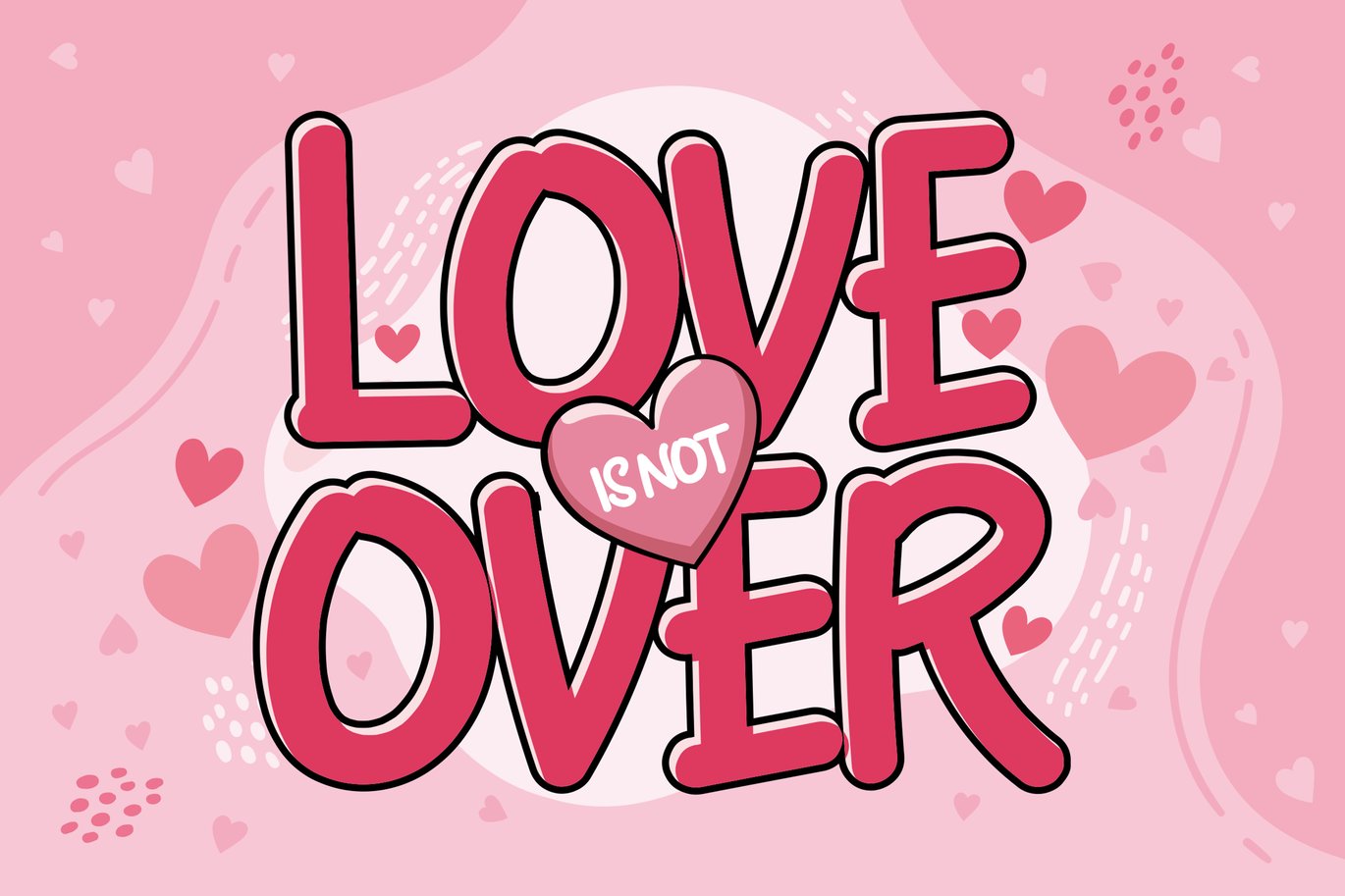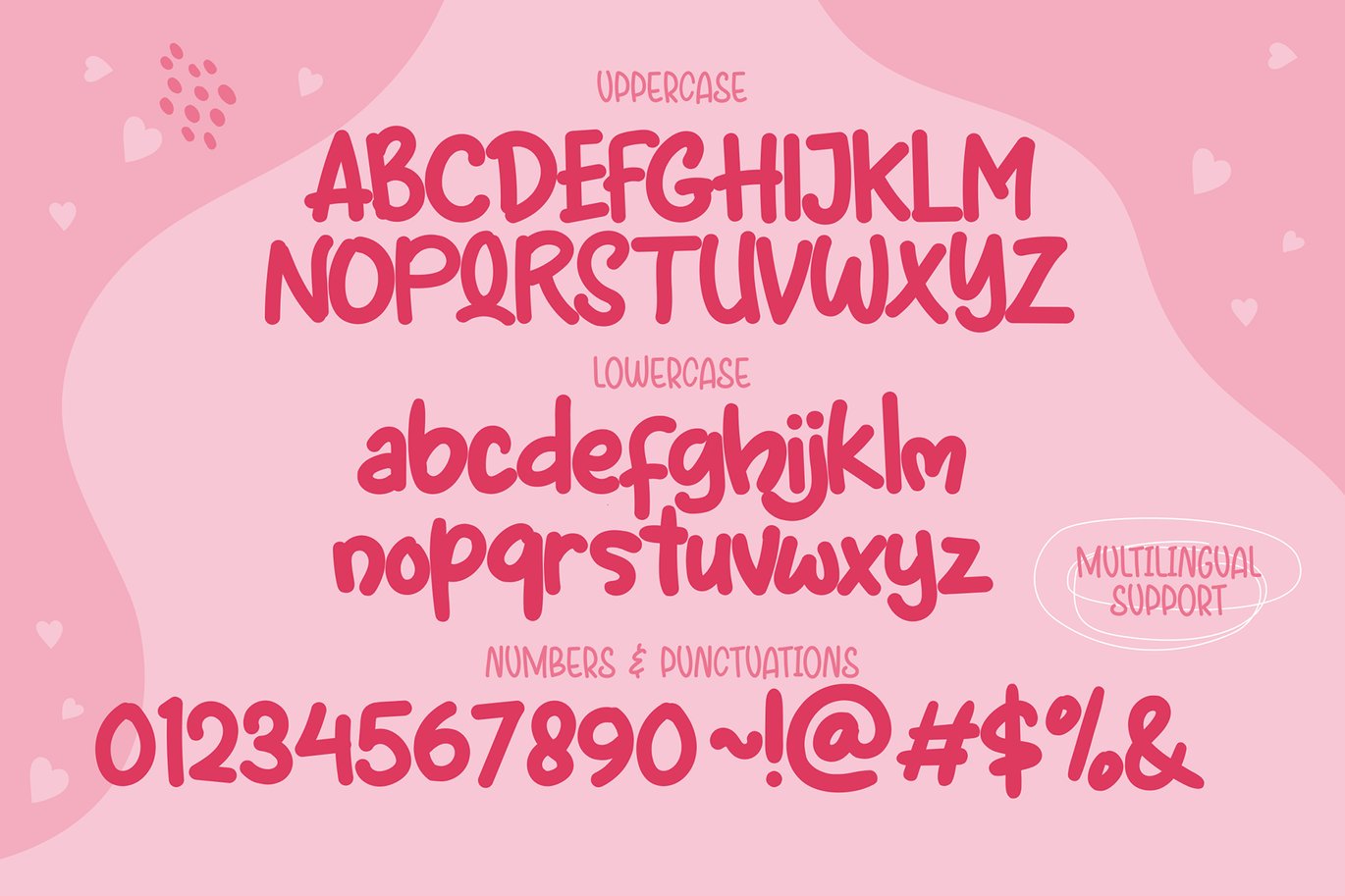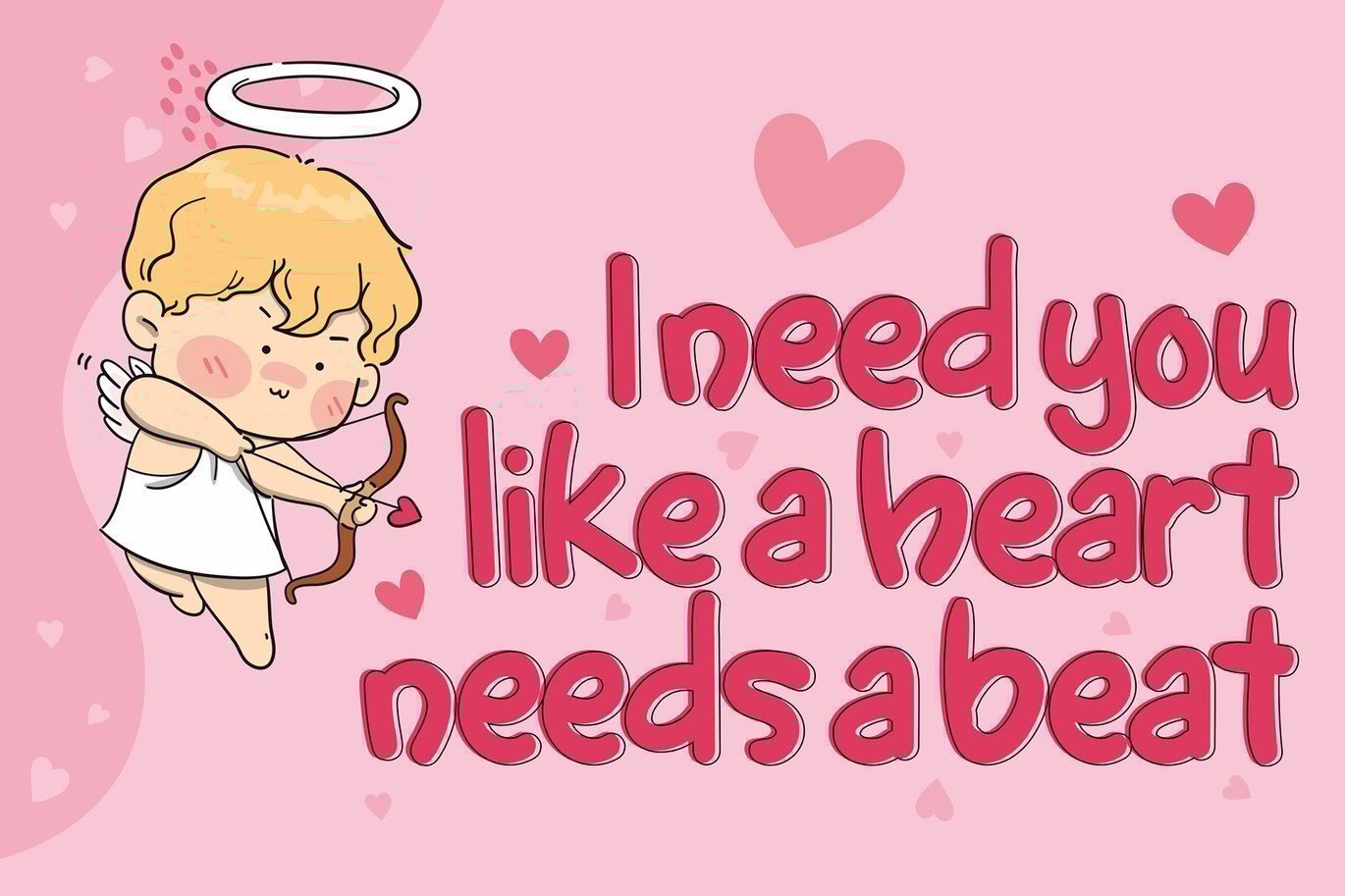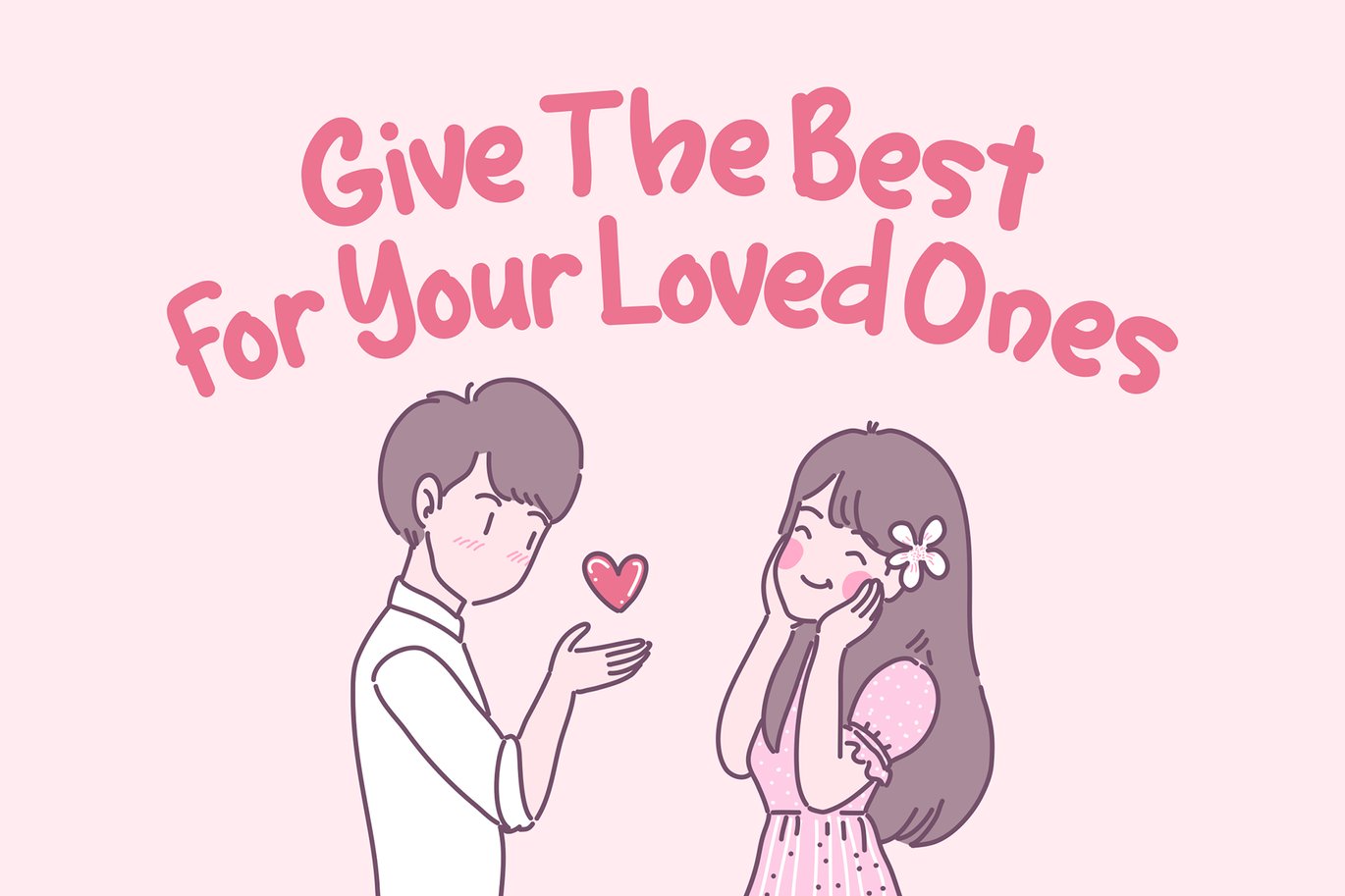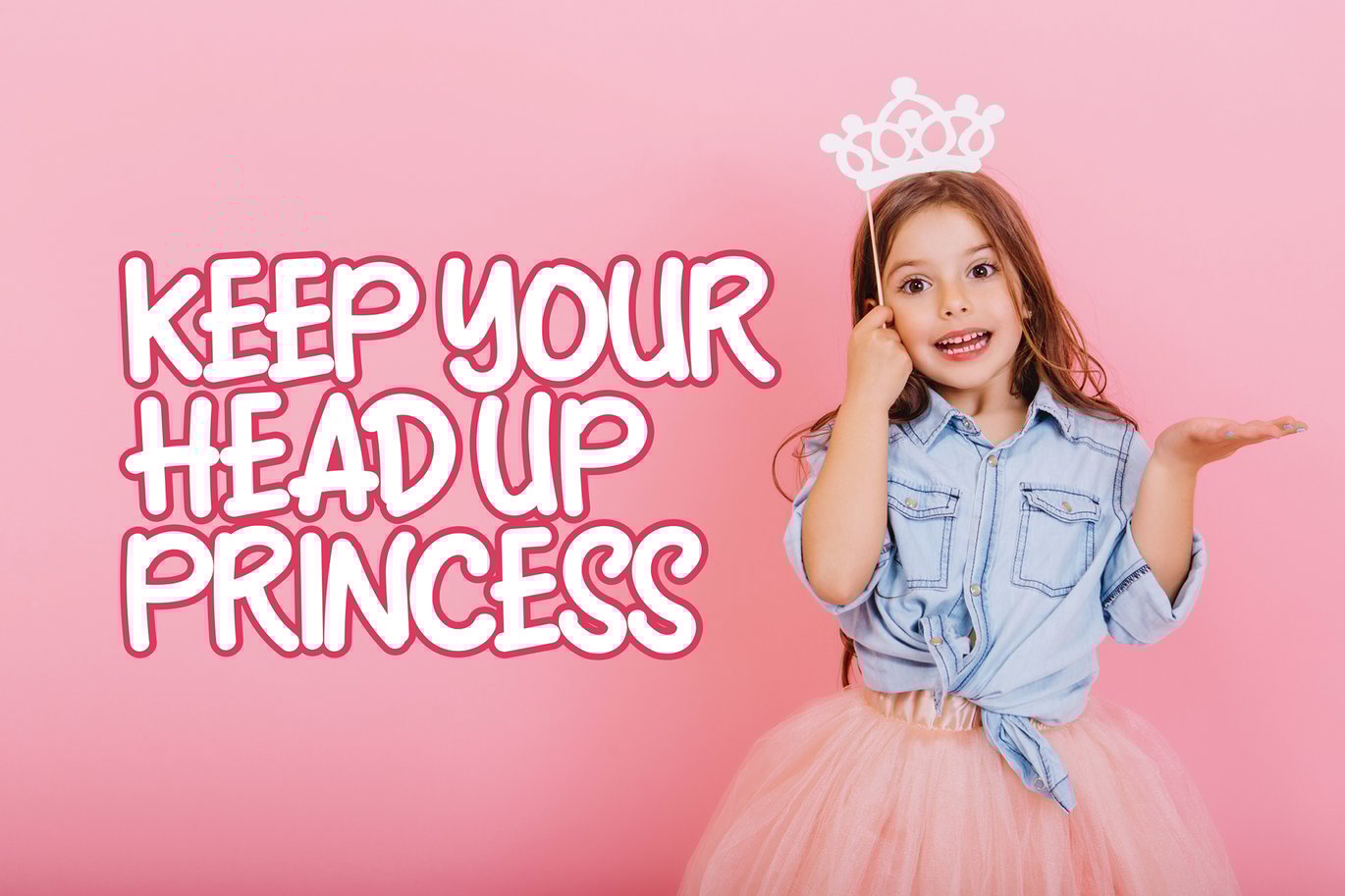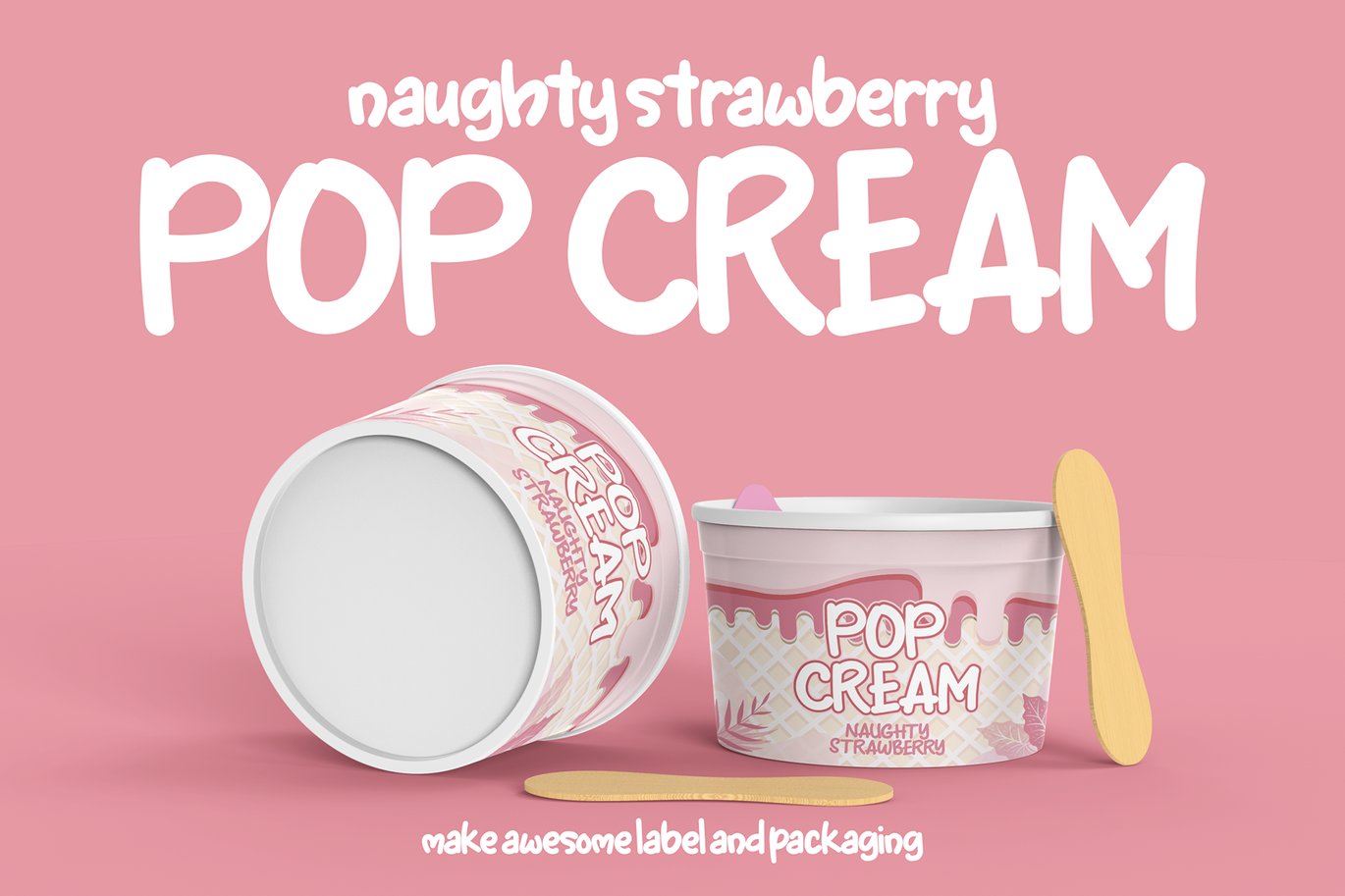
Love Over – Lovely Display Font
Say hello to Love Over font.
Made with love and joy. Handwritten, Cartoon look, so it will make your design more beautiful, cute, fun, and colorful.
*Character Set
*Numerals and Punctuation
*Accents (Multilingual characters)